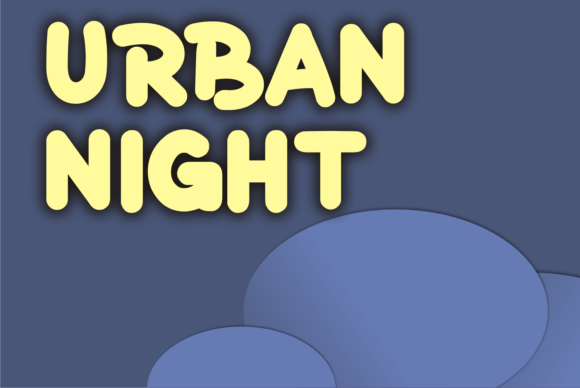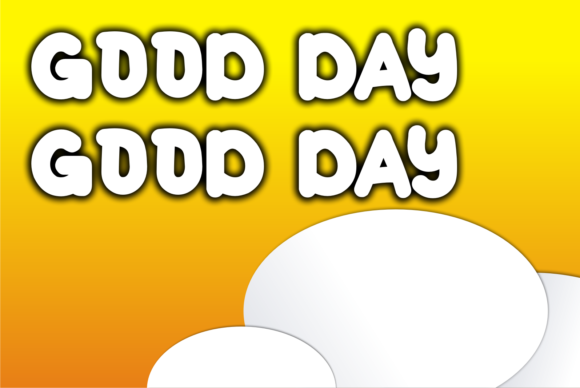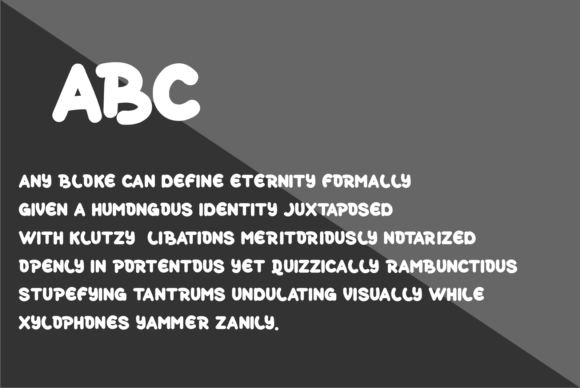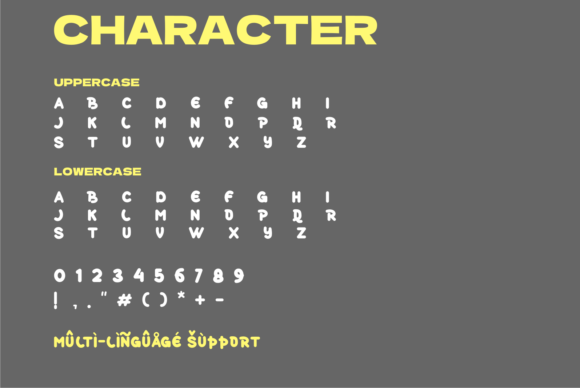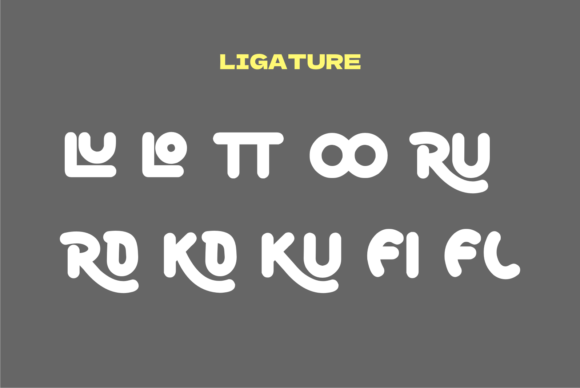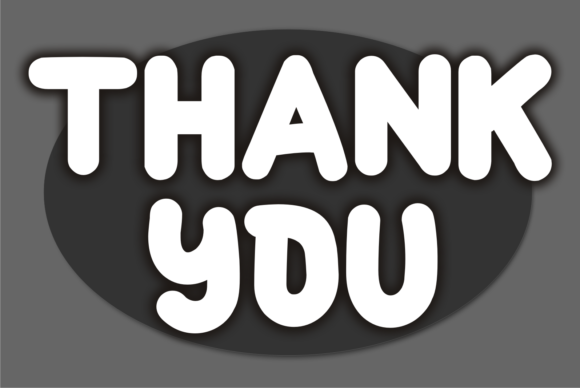
Introduction to Ruiko Font
You’ve spent hours brainstorming the perfect concept for your upcoming creative project, but the design just isn’t popping. The words on the page feel dull and uninspiring, and you know it’s time to shake things up. That’s where the right font comes in – and we think we’ve found the perfect solution in the Ruiko Font.
This sleek and modern display font is more than just a pretty face; it’s a game-changer for designers looking to add some serious style to their work. Whether you’re working on a logo, a poster, or even just a fun design for your favorite clothing brand, Ruiko Font is sure to help you stand out from the crowd.
Key Features of Ruiko Font
- High-quality font with a transparent background, allowing for seamless integration with any design or background.
- Comes in a single size and resolution, making it easy to use across different devices and screen sizes.
- Unique and elegant design, perfect for adding a touch of sophistication to any creative project.
- Designed to be highly legible, making it an excellent choice for body text, headings, and titles in any design or publication.
Honest Review: Ruiko Font
I recently stumbled upon the Ruiko Font, and I must say it’s been a game-changer for my creative projects. This free download has been a valuable addition to my design resource library, offering a high-quality, elegant look that’s perfect for various designs.
- ✨ Beautiful, hand-drawn style that’s perfect for creative projects
- ✨ Supports a wide range of languages, making it a versatile design resource
- ⚠️ Limited font weights and styles available
Overall, I’m really impressed with the Ruiko Font. While it may not be perfect, its unique style and high-quality design make it a valuable addition to any designer’s toolkit. If you’re looking for a free, elegant font for your creative project, I’d definitely recommend giving it a try.
Ruiko Font is commonly used in branding, marketing materials, and digital design projects. Its high-quality design and transparent background make it a popular choice for designers and creatives.